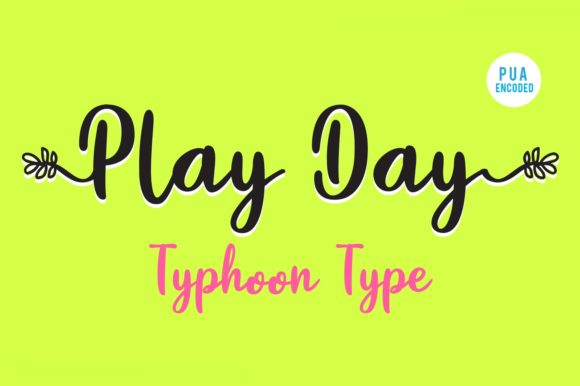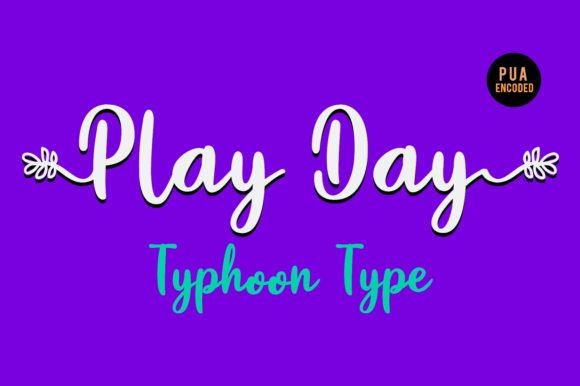
Play Day Font
About Play Day Font
Play Day is a fun and authentic font, with a touch of quirkiness. This enchanting font will turn any creative idea into a true standout. Get creative with its childlike playfulness, and use it to brighten up any kids and school project!